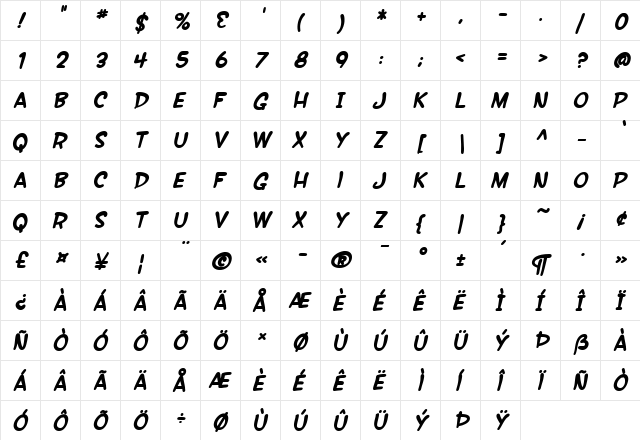
SF Wonder Comic Bold Italic
| Foundry | ShyFoundry |
| Designer | Derek Vogelpohl |
Design Context for SF Wonder Comic Typeface
SF Wonder Comic has an approachable, lighthearted character — its loose, expressive forms are well-suited to children's content, casual branding, and fun-first design. The dynamic lean of this cut emphasises speed and emphasis in any layout.
Font Pairing: Pairs well with a rounded or humanist sans for body copy, maintaining the friendly tone without relying on SF Wonder Comic to carry extended reading.
Pro Tip: Use SF Wonder Comic at larger display sizes where its expressive character can land. Pair with a clean, simple sans for body copy to maintain readability.